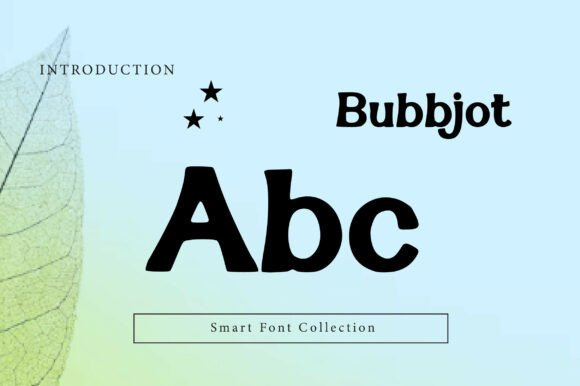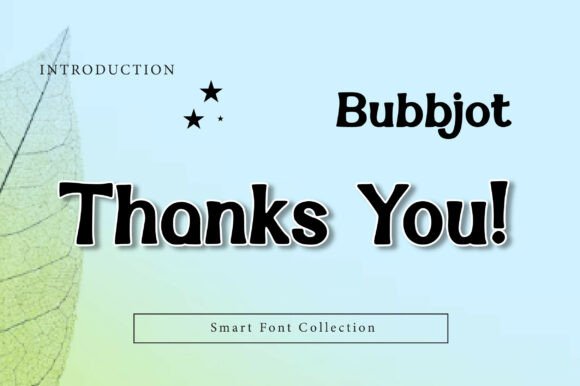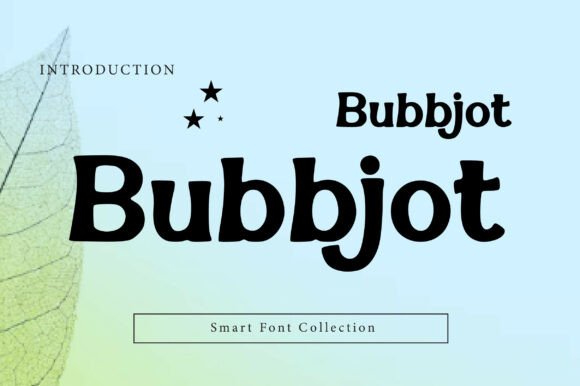
Discover the Playful Charm of BubbJot Font
I’ll never forget the time I was working on a project for a kids’ birthday party, and I just couldn’t find the right font to match the playful vibe of the design. The client wanted something fun, energetic, and approachable, but everything I tried seemed either too boring or too over-the-top. That’s when I stumbled upon BubbJot Font, and it instantly brought the design to life! In this article, I’ll share my love for this delightful font, its features, and how to make the most of it in your creative projects.
An Honest Review of BubbJot Font
What I Love About BubbJot ✨
- 💥 **Playful and energetic personality**: BubbJot has a bouncy, cartoon-like feel that’s perfect for kids’ designs, playful headlines, and fun merchandise.
- ✅ **Easy to read**: Despite its chunky and handwritten style, BubbJot is surprisingly legible, even at smaller font sizes.
- 🌈 **Versatile**: This font is suitable for a wide range of creative projects, from logos and posters to social media graphics and packaging.
- 👍 **Friendly and approachable**: BubbJot’s soft curves and rounded style make it an excellent choice for designs that need to convey a sense of warmth and friendliness.
- ⚠️ **Limited use in formal contexts**: Due to its playful nature, BubbJot might not be the best fit for formal or professional designs, such as business reports or academic papers.
- 🤔 **Some letters may require adjustment**: Depending on the word or phrase, you might need to adjust the letter spacing to achieve optimal readability.
- Experiment with BubbJot’s OpenType features, such as stylistic alternates and glyphs, to add visual interest to your design.
The Backstory Behind BubbJot Font
BubbJot was designed with the intention of creating a font that would bring joy and playfulness to designs. Its creator aimed to craft a font that would be both fun and functional, making it perfect for a wide range of creative projects. While the actual story behind BubbJot’s creation might be fictional, its impact on designers and crafters is very real.
Q: What type of designs is BubbJot best suited for?
A: BubbJot is perfect for kids’ designs, logos, posters, stickers, social media graphics, branding, packaging, playful headlines, and fun merchandise.
Q: Is BubbJot a difficult font to read?
A: Despite its chunky and handwritten style, BubbJot is surprisingly legible, even at smaller font sizes.